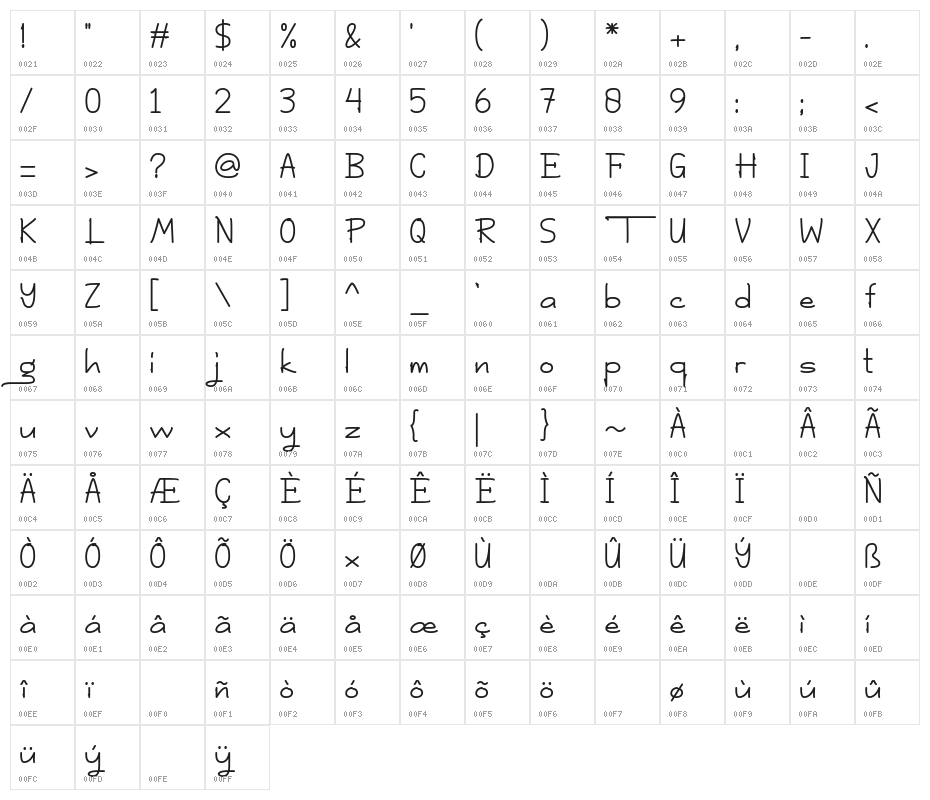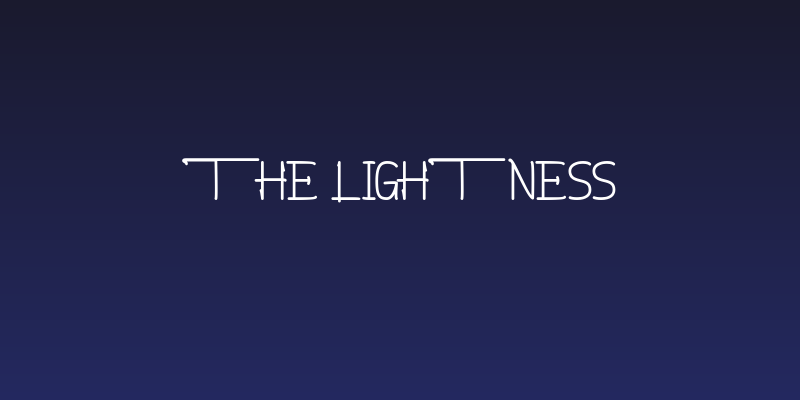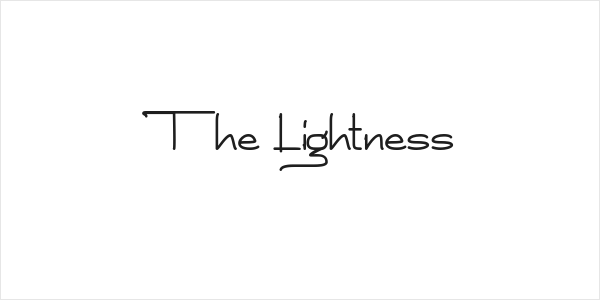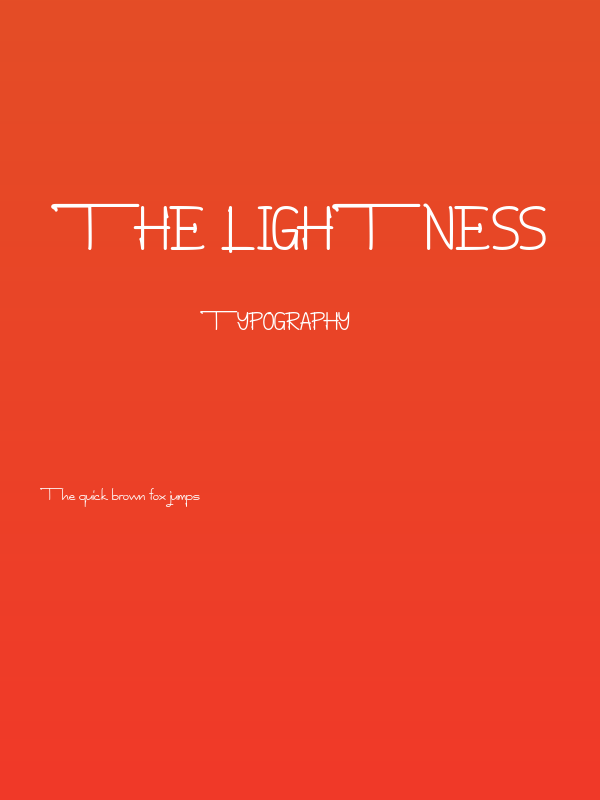
The Lightness Font
The Lightness Description
This font features a playful and casual handwritten style, characterized by its rounded and slightly irregular letterforms. The uppercase letters are tall and narrow, while the lowercase letters maintain a consistent flow with a touch of whimsy. The numerals are clear and easy to read, complementing the overall informal aesthetic. Special characters are creatively integrated, adding to the font's charm. The strokes are consistent in width, providing a uniform appearance that enhances readability while maintaining a friendly and approachable vibe.
| Proposed Projects | Ideal for children's books, greeting cards, informal invitations, and playful branding projects. |